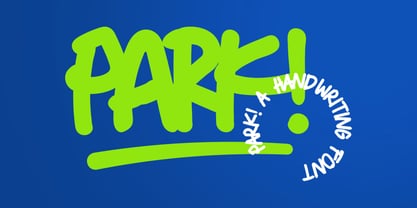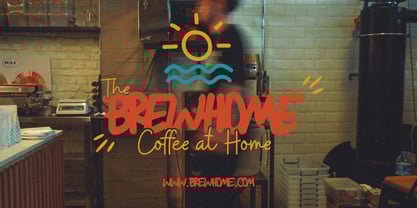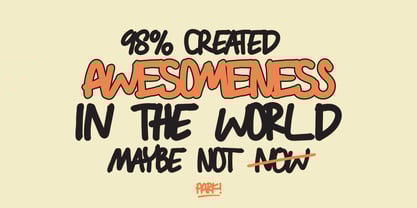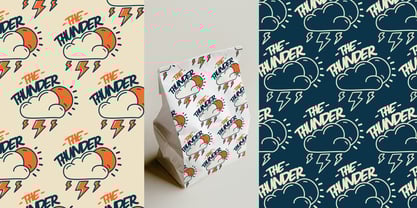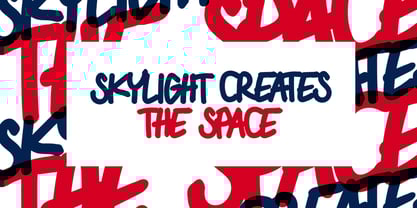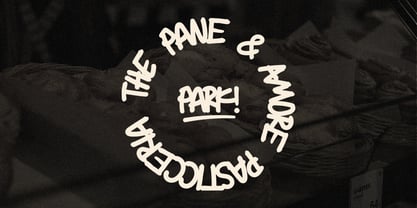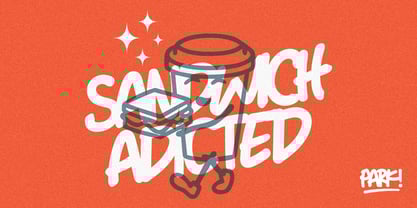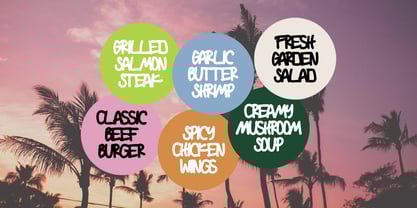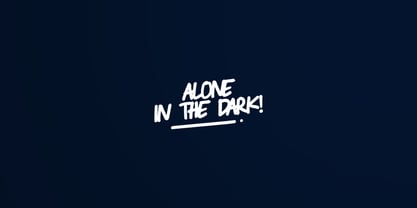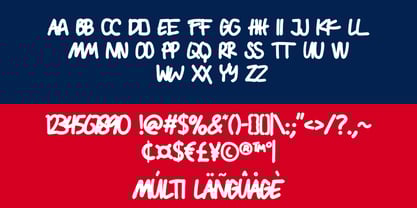
Park Font
by Angga Mahardika
The Park Font Font Family was designed by Angga Mahardika and published by Angga Mahardika. Park Font contains 1 styles.
Park! – A Bold Handwriting Font Bring energy, fun, and personality to your design projects with Park!, a bold and playful handwriting font inspired by street art and modern graffiti vibes. Its thick strokes, casual flow, and dynamic shapes make it perfect for eye-catching typography that stands out everywhere. Whether you’re working on posters, branding, packaging, social media graphics, or merch, Park! adds a vibrant handwritten touch that feels both expressive and stylish.